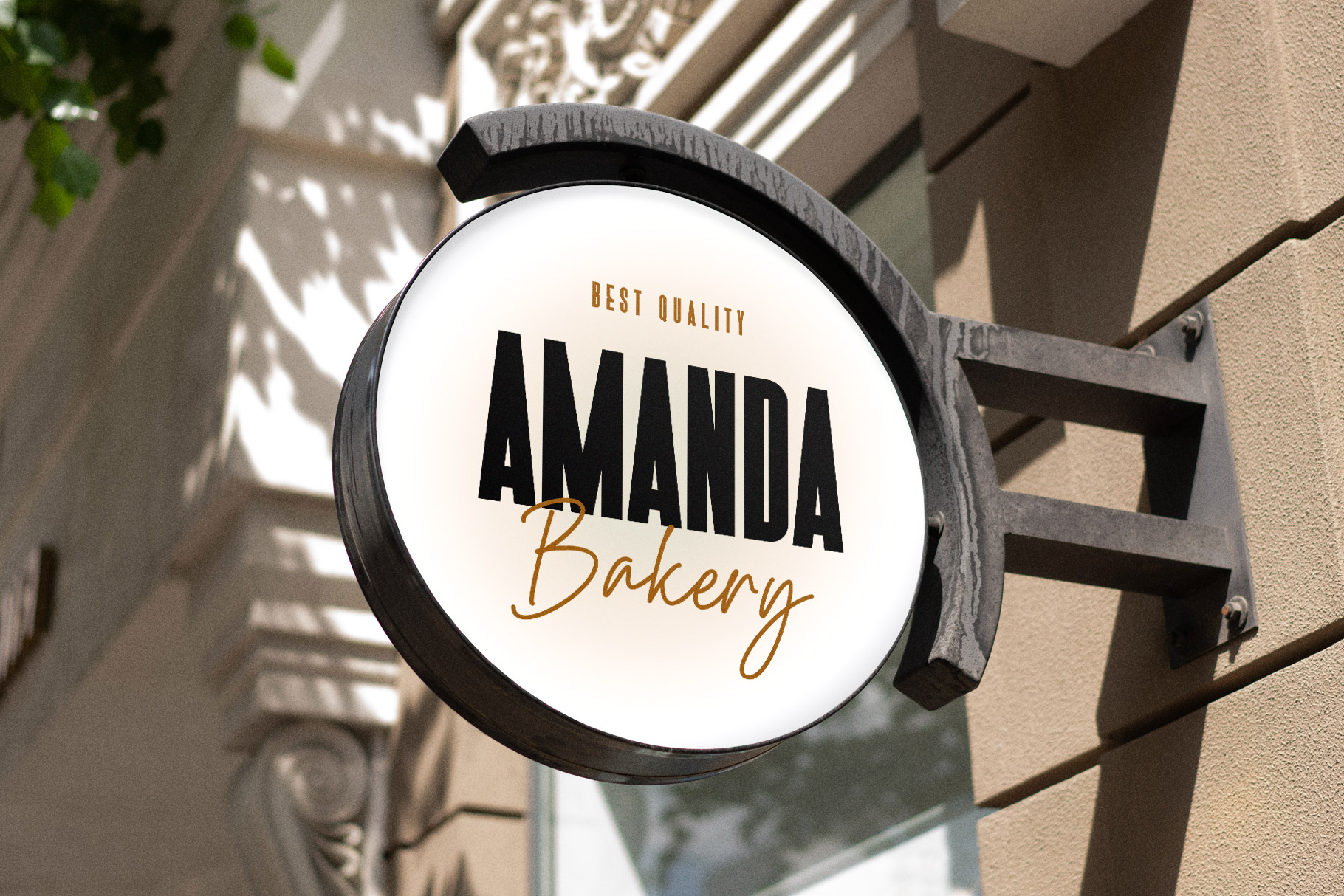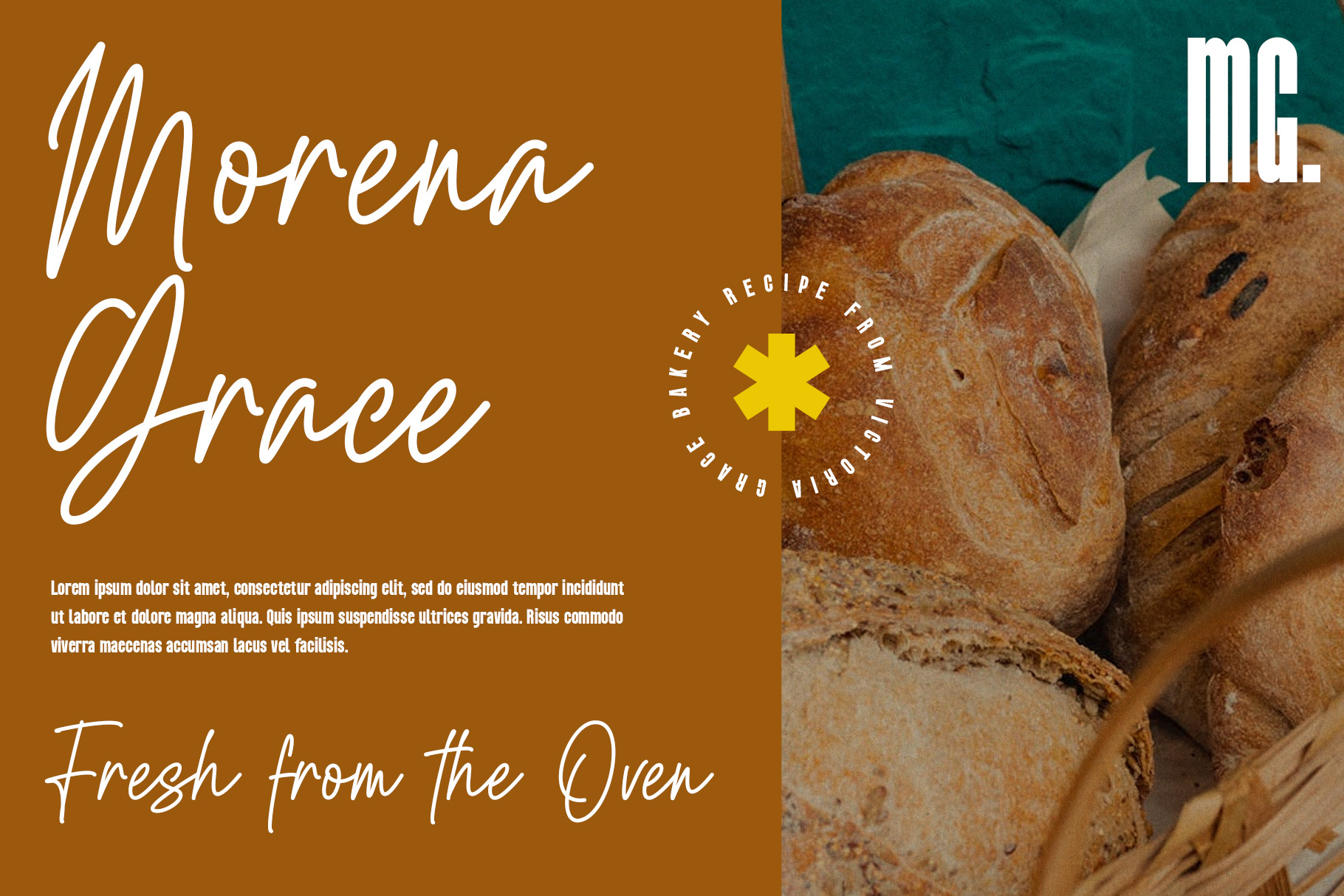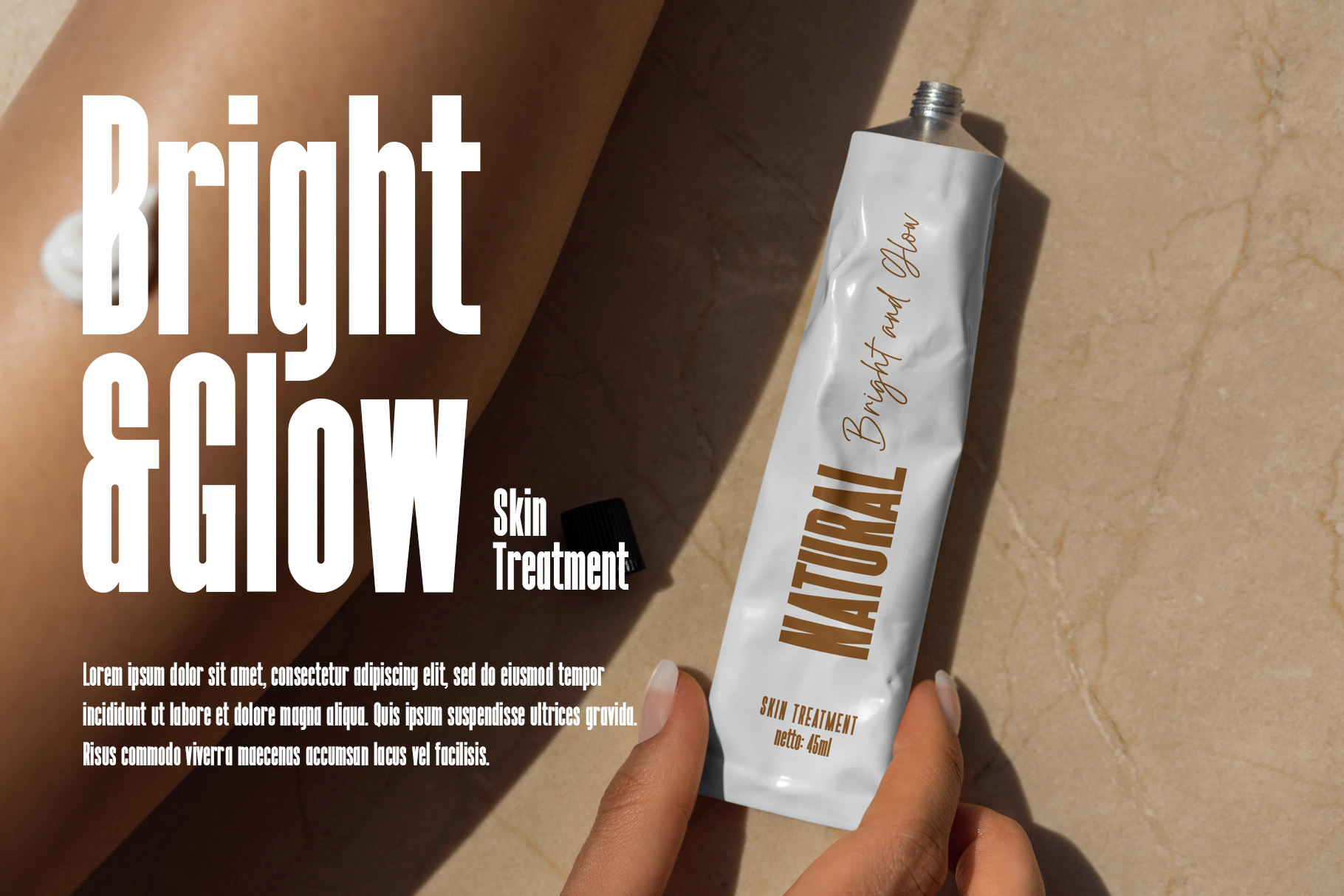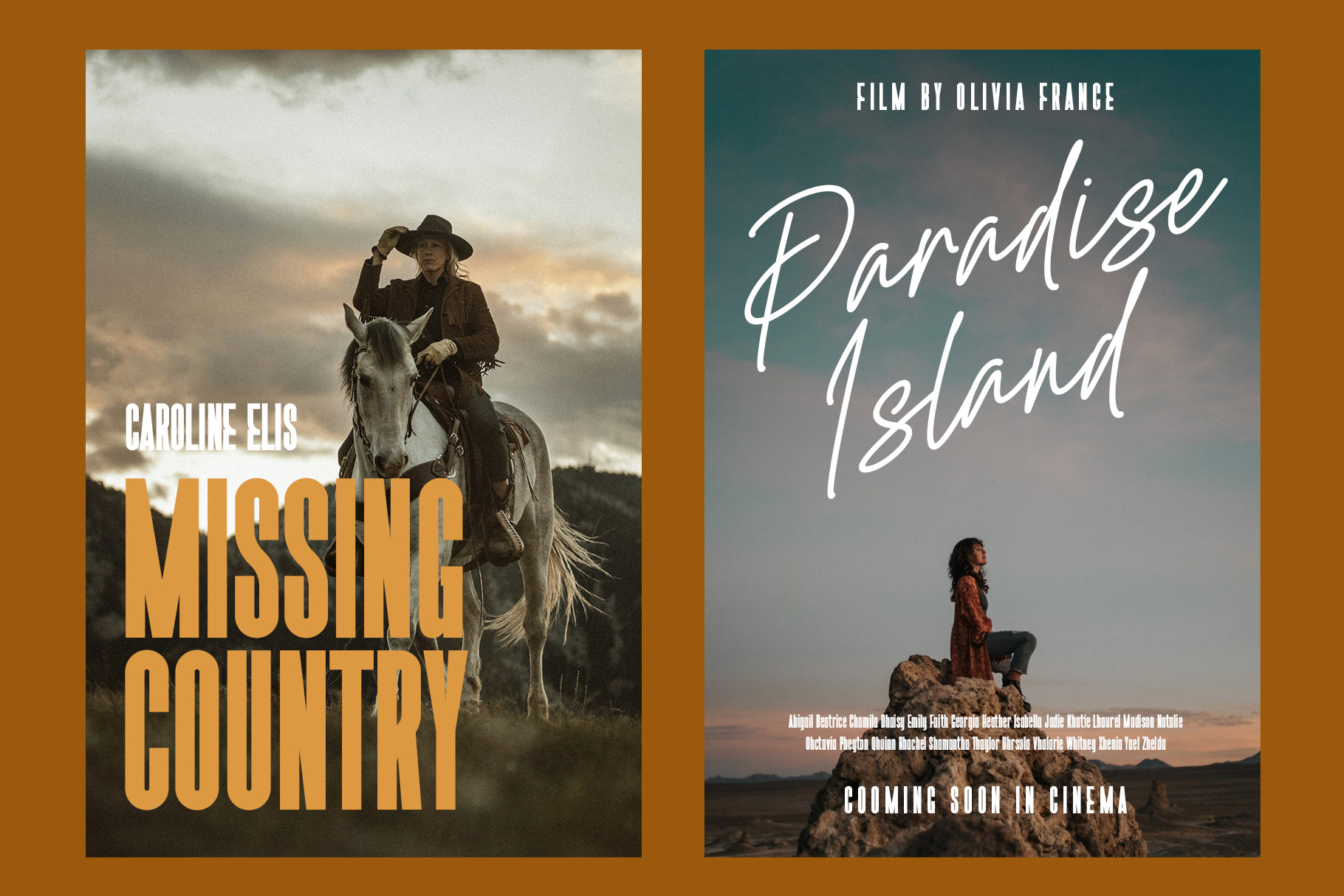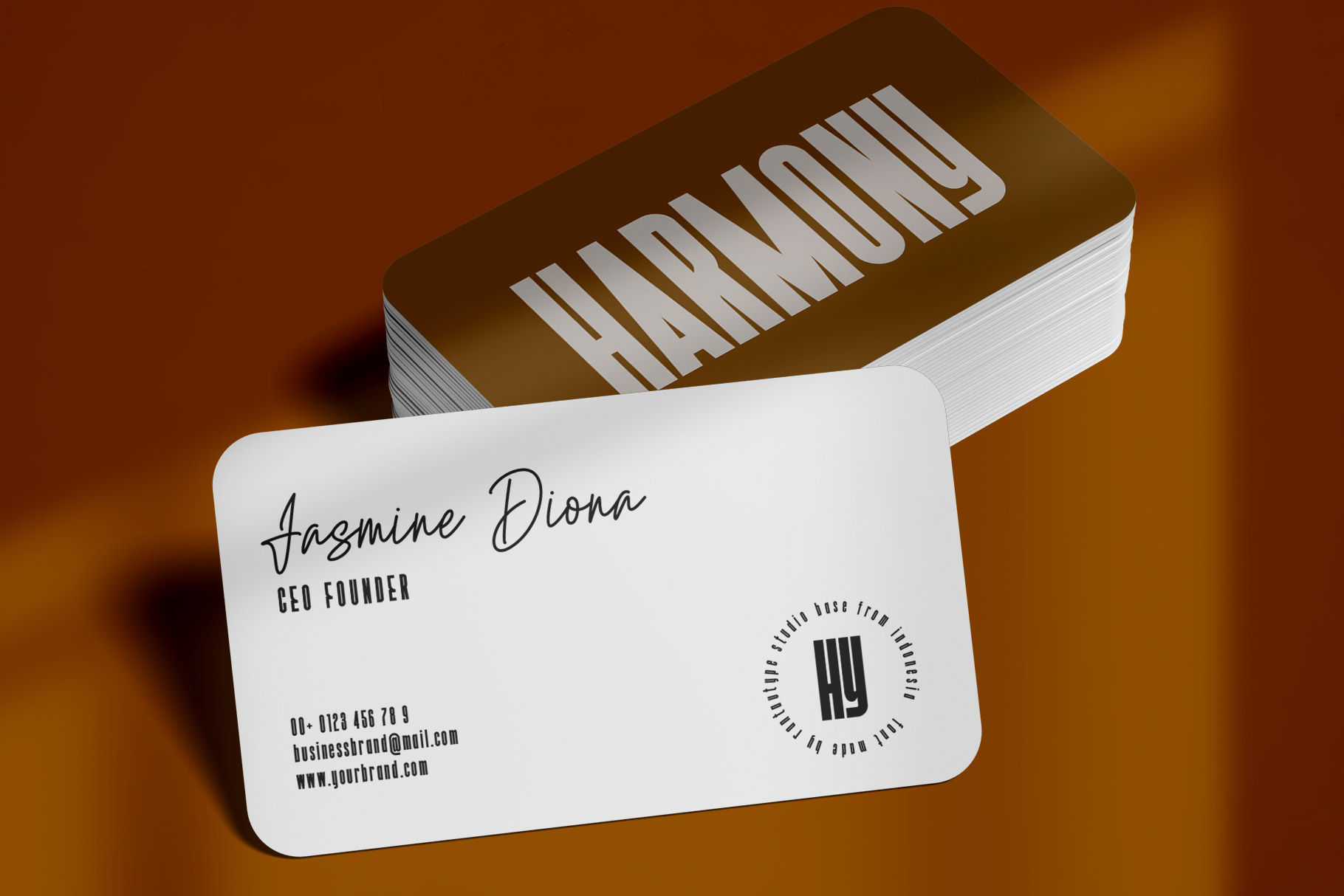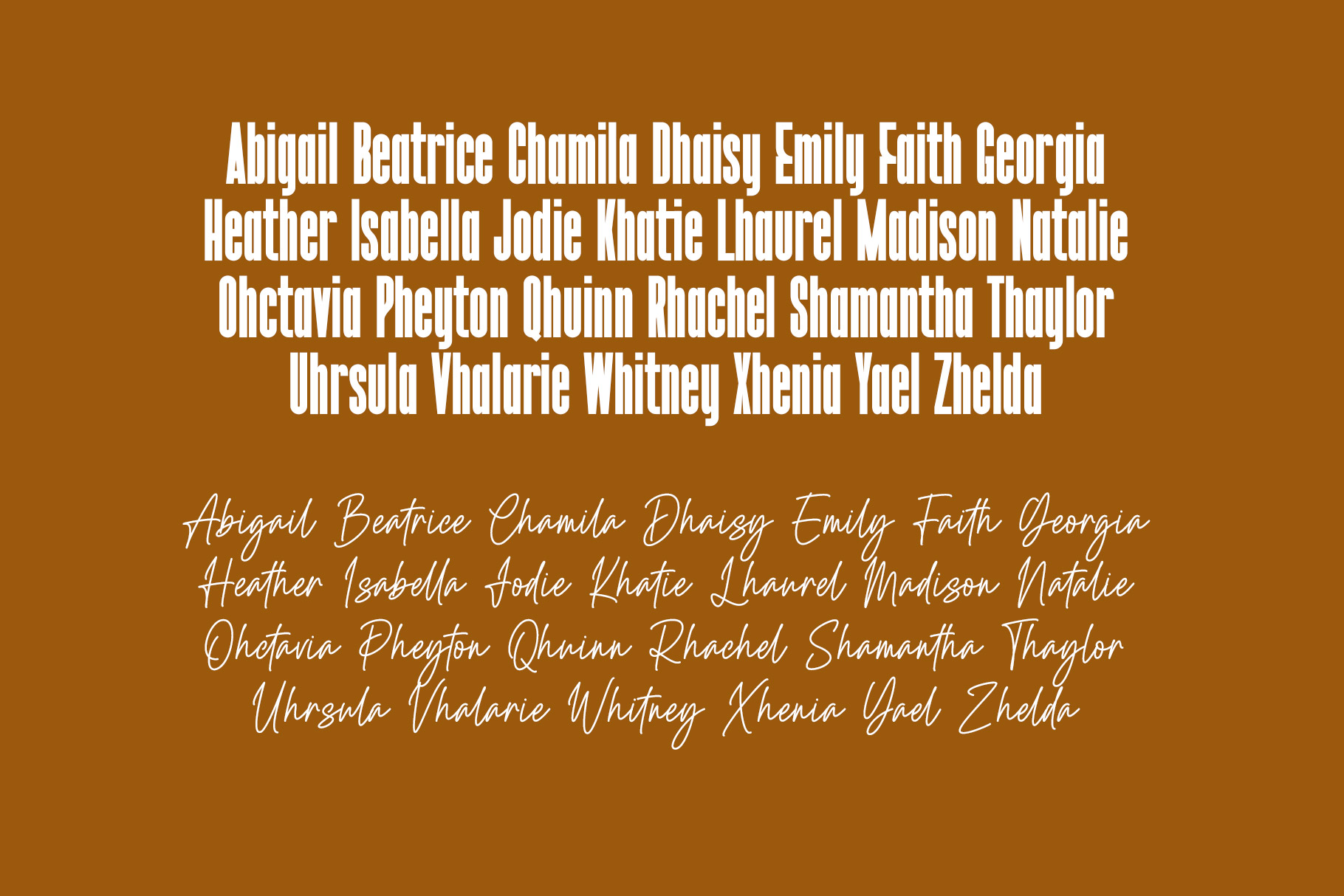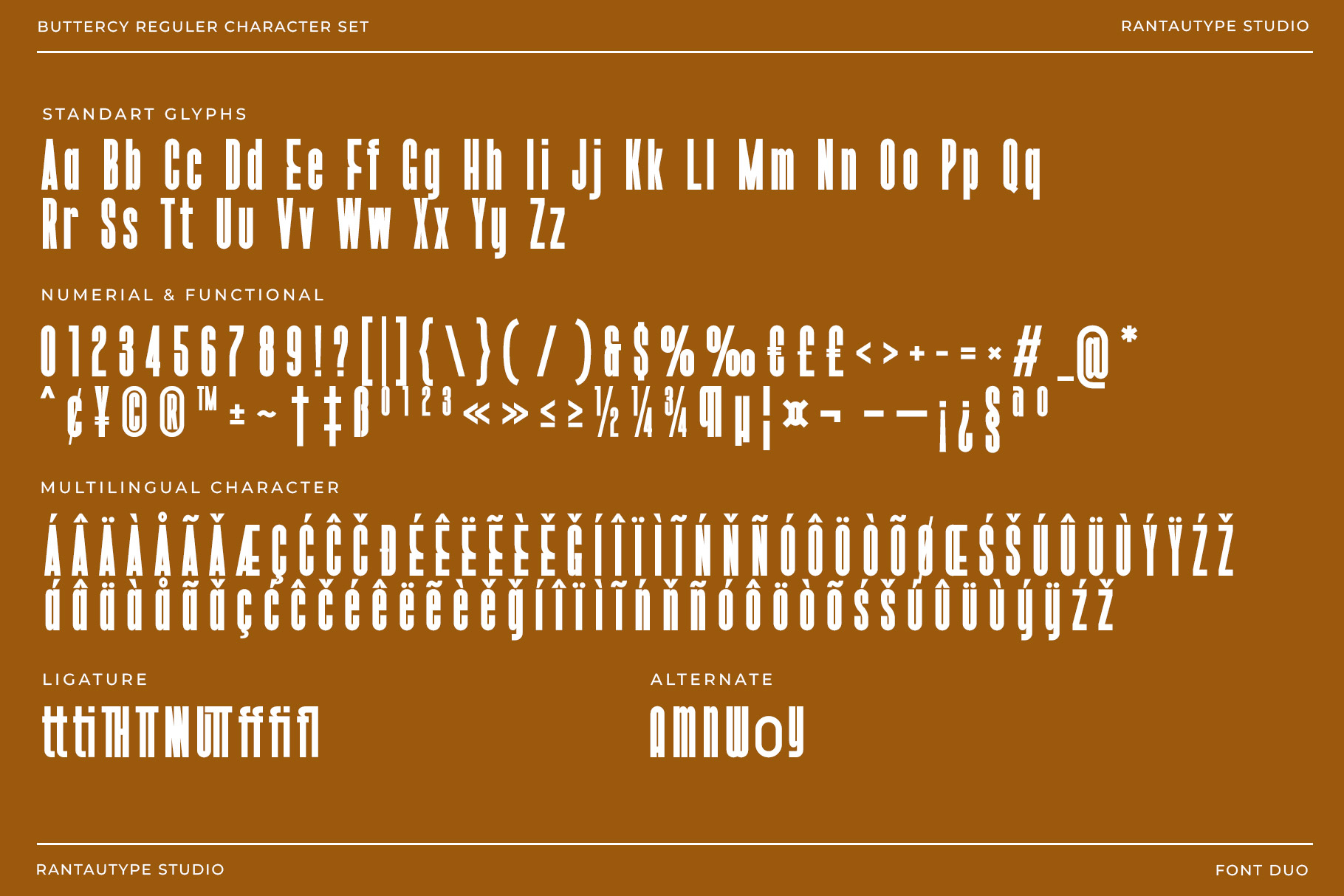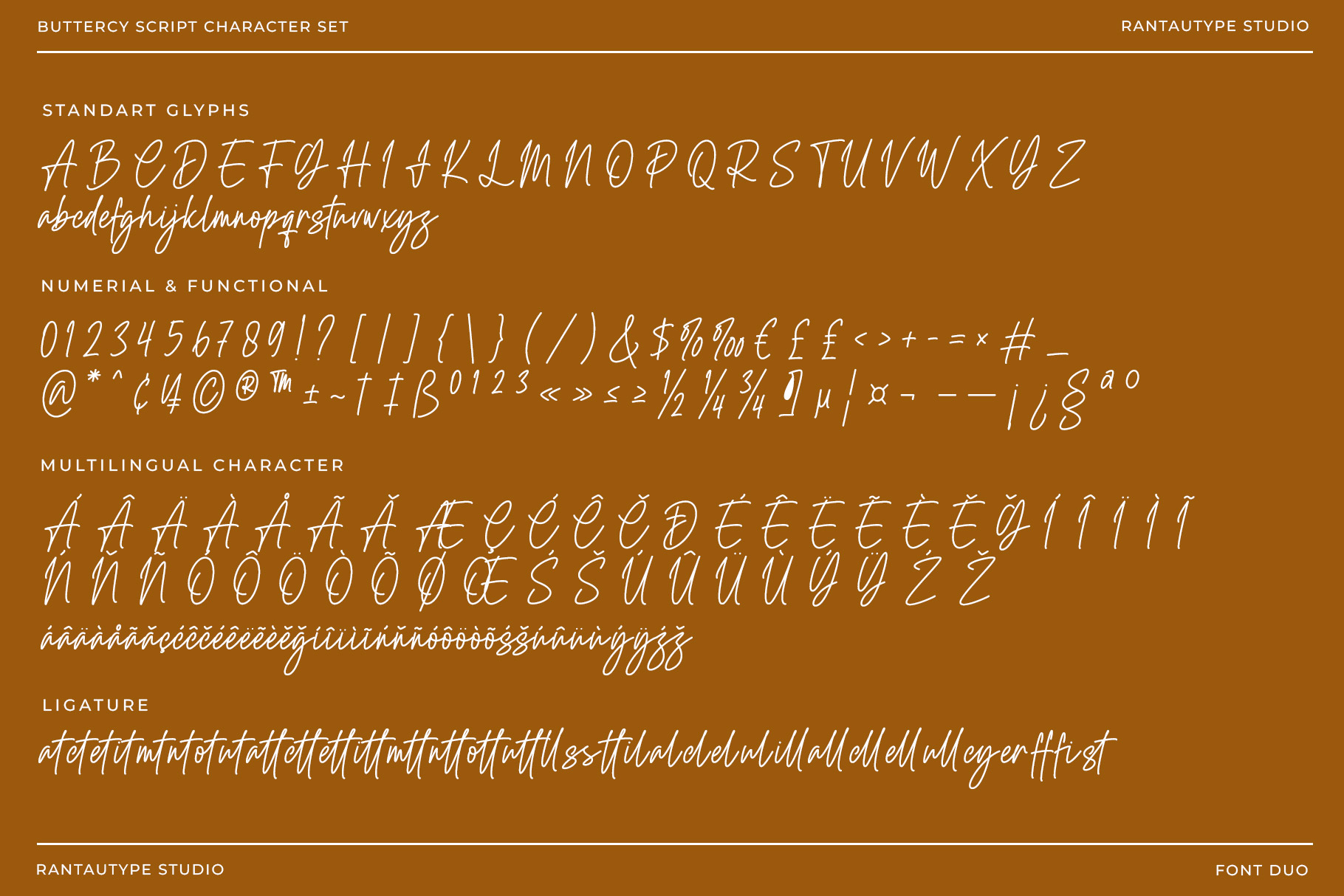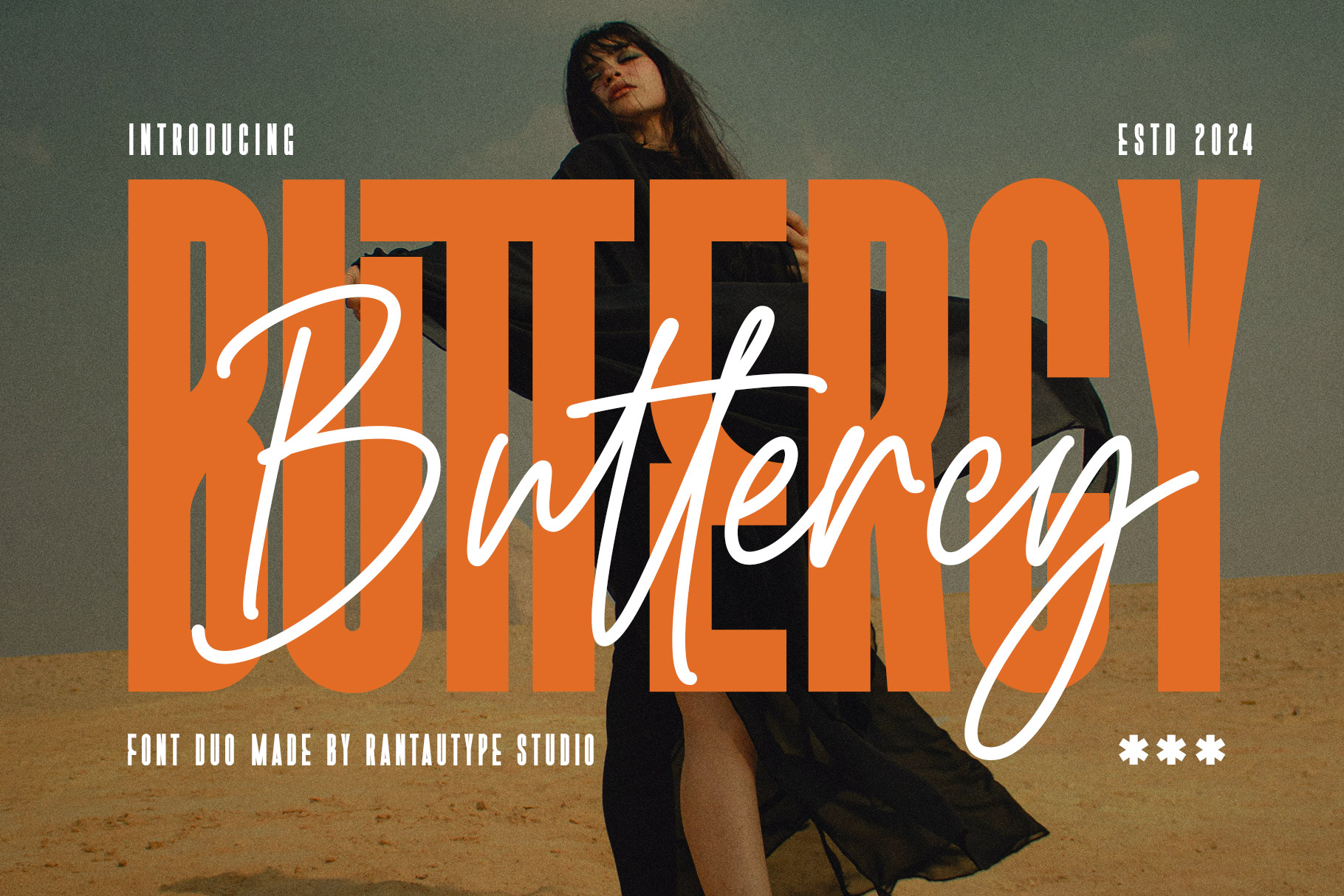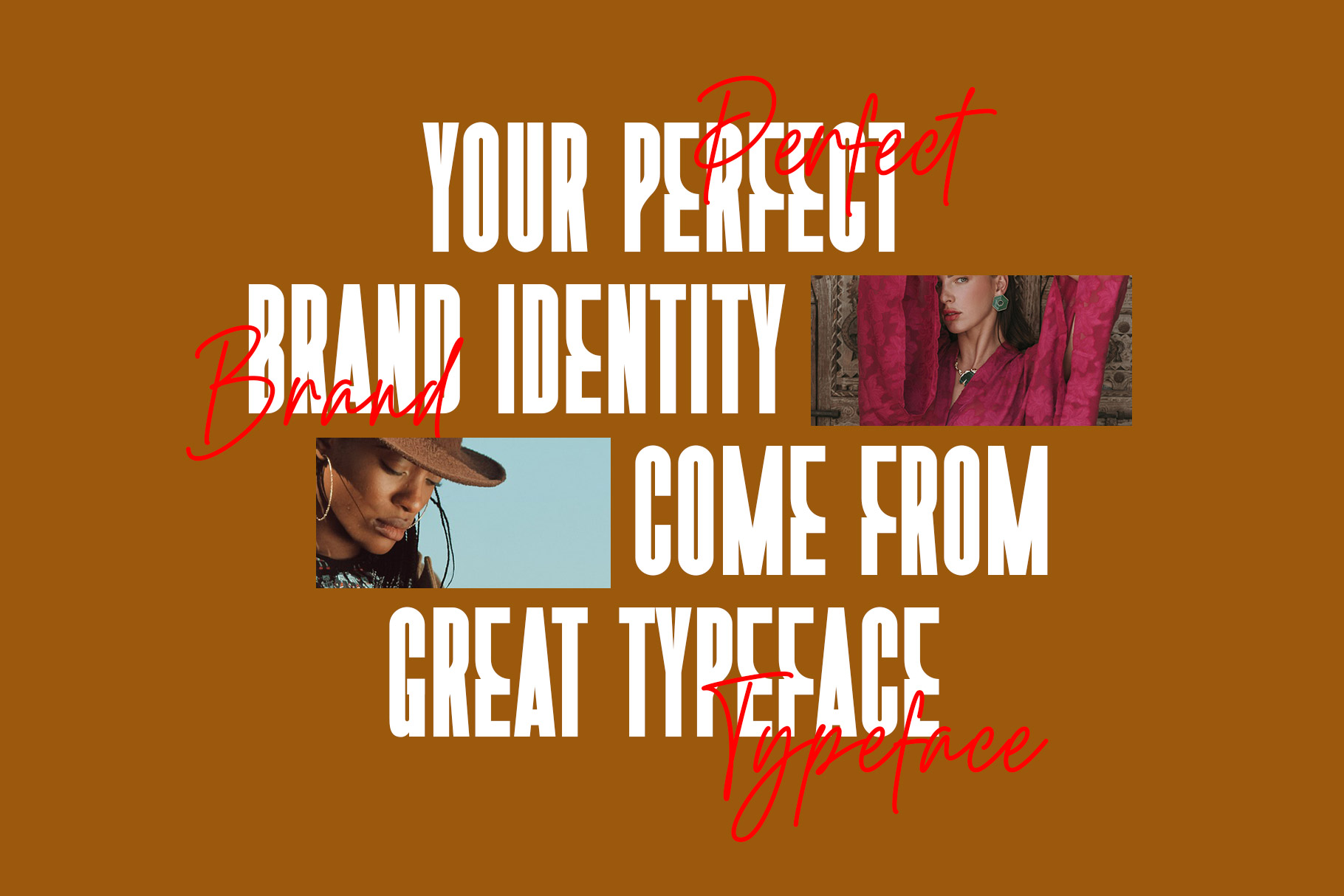
Buttercy Font Duo
Buttercy is perfect combination sans serif with script font. Buttercy bring elegant sans and flowless script to make you brand or design project stand out!
Buttercy is a perfectly choice for any creative endeavor, chic, lifestyle design such as logotype, advertisements, watermark on photography, stationery, branding project, display and magazine, invitation, corporate brand, product design, label, business project and many other project with modern and elegant touch.